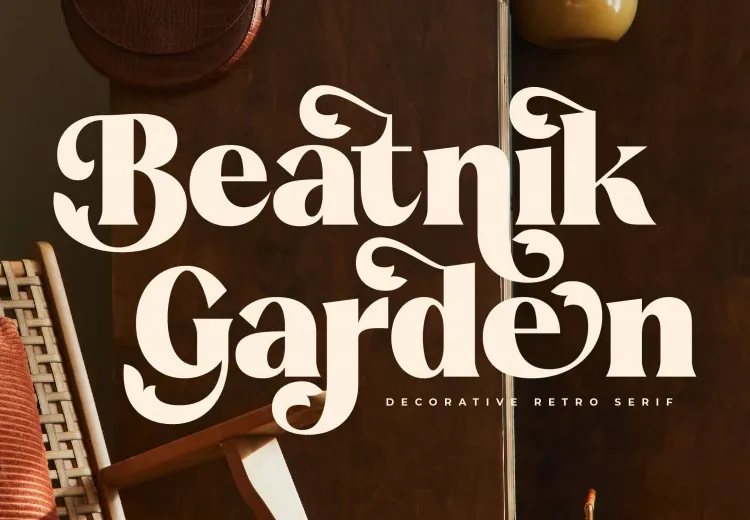
Beatnik Garden Font
Beatnik Garden by Letterena is an elegant luxury serif font designed to elevate any creative project with its sophisticated charm. Ideal for a wide range of applications, Beatnik Garden enhances logos, branding materials, homeware packaging, and product designs, such as mugs and shopping bags. Its refined serif details also make it perfect for posters, books, t-shirts, invitation cards, name cards, greeting cards, labels, watermarks, and special event photography projects, adding a touch of elegance to every design.
With its blend of sophistication and beauty, Beatnik Garden is a versatile choice for those looking to infuse their work with a luxurious and refined aesthetic. Its graceful serif elements and classic style ensure that it stands out in both professional and personal projects, making it a valuable addition to any designer’s toolkit.